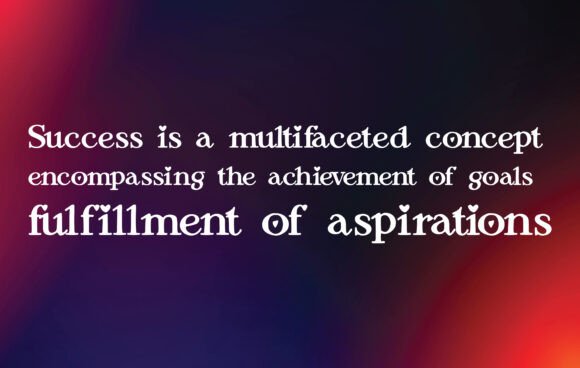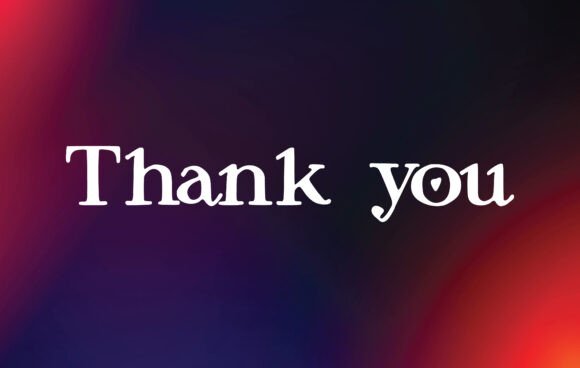
Introduction to Prudence Font
Have you ever stared at a blank canvas, struggling to find the perfect font to bring your creative idea to life? That’s a moment we’ve all been there, and it’s exactly why we’re excited to introduce you to the Prudence Font – a beautiful and elegant font that’s about to take your design projects to the next level.
Whether you’re working on a logo, branding, or quote, the Prudence Font is the perfect design resource to help you create stunning visuals that capture attention. With its lovely and beautiful typography, this font is sure to elevate your creative project and leave a lasting impression on your audience.
Key Features of Prudence Font
- Designed with a unique, elegant style that adds sophistication to any design
- Perfect for use in logos, branding, and other visual identity projects
Honest Review: Prudence Font
I recently had the chance to try out the Prudence Font, and I must say it’s a solid addition to any designer’s toolkit. With its free download option, it’s an accessible design resource that won’t break the bank.
- What works well: ✨ The Prudence Font is available in a range of weights and styles, making it perfect for creative projects where you need to match a specific aesthetic. The transparent background option is also a bonus for designers who need to overlay text on images.
- What works well: ✨ The font’s high-quality design ensures that it looks crisp and clear on both digital and print materials.
Overall, I’m impressed with the Prudence Font’s design and versatility. While it may have some limitations, it’s a great option for designers looking for a high-quality, free design resource.
Prudence Font
Tips for Getting the Most Out of Prudence Font
Use Prudence Font with a transparent background to create a sense of depth and layering in your design.
Experiment with different font sizes and colors to create visual interest and hierarchy in your design.
Use Prudence Font in combination with other design elements, such as images and graphics, to create a cohesive and visually appealing design.
Common Use Cases for Prudence Font
Prudence Font is perfect for
Can I use the Prudence Font with a transparent background?
Yes, the Prudence Font is designed to work well with transparent backgrounds. This makes it ideal for use in web design, where a transparent background can help to create a seamless and modern look.